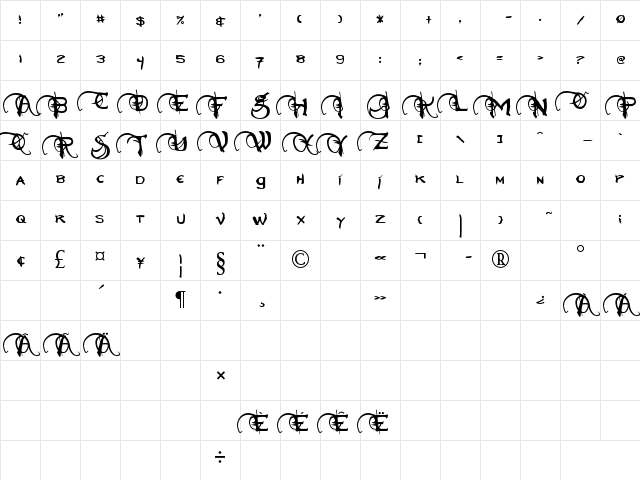
Neverwinter Regular
Design Context for Neverwinter
Neverwinter is a composed and adaptable typeface that performs quietly and consistently across a wide range of design contexts.